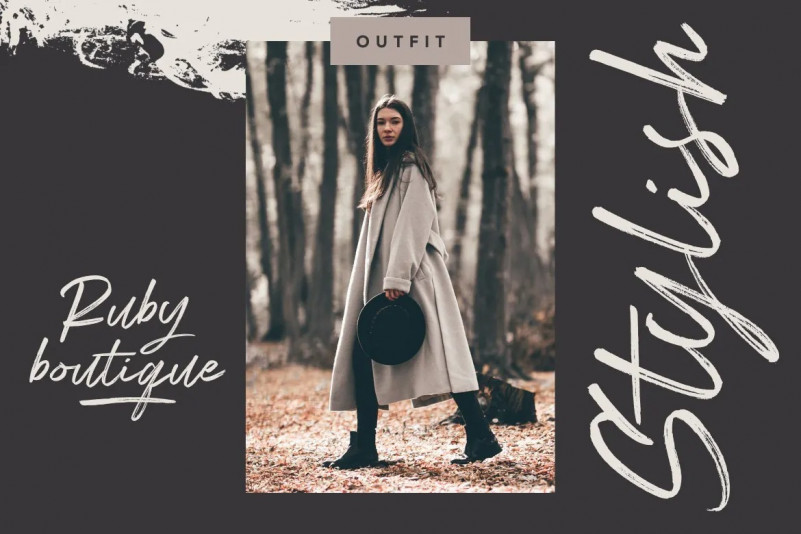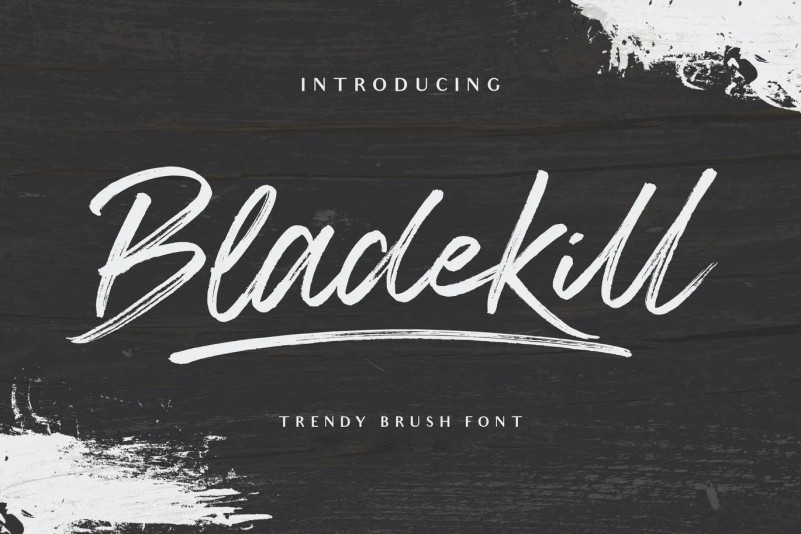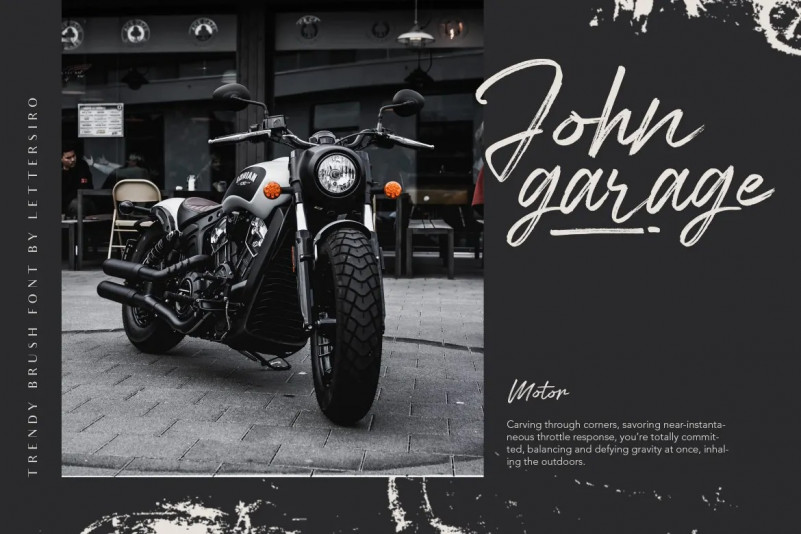
Bladekill Font
This is a brush font made manually in paper and dry brush pen. Good and suitable for modern design project such as blog, web, logo, clothing, advertisement and book cover